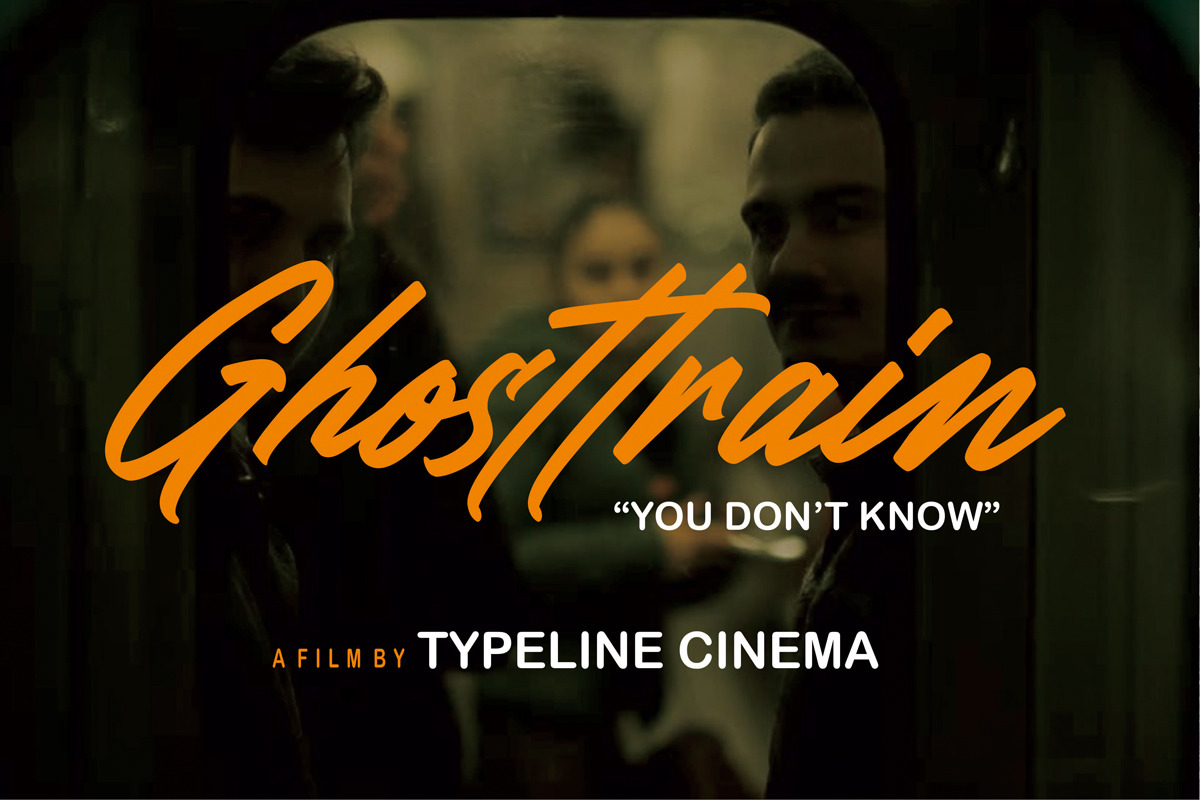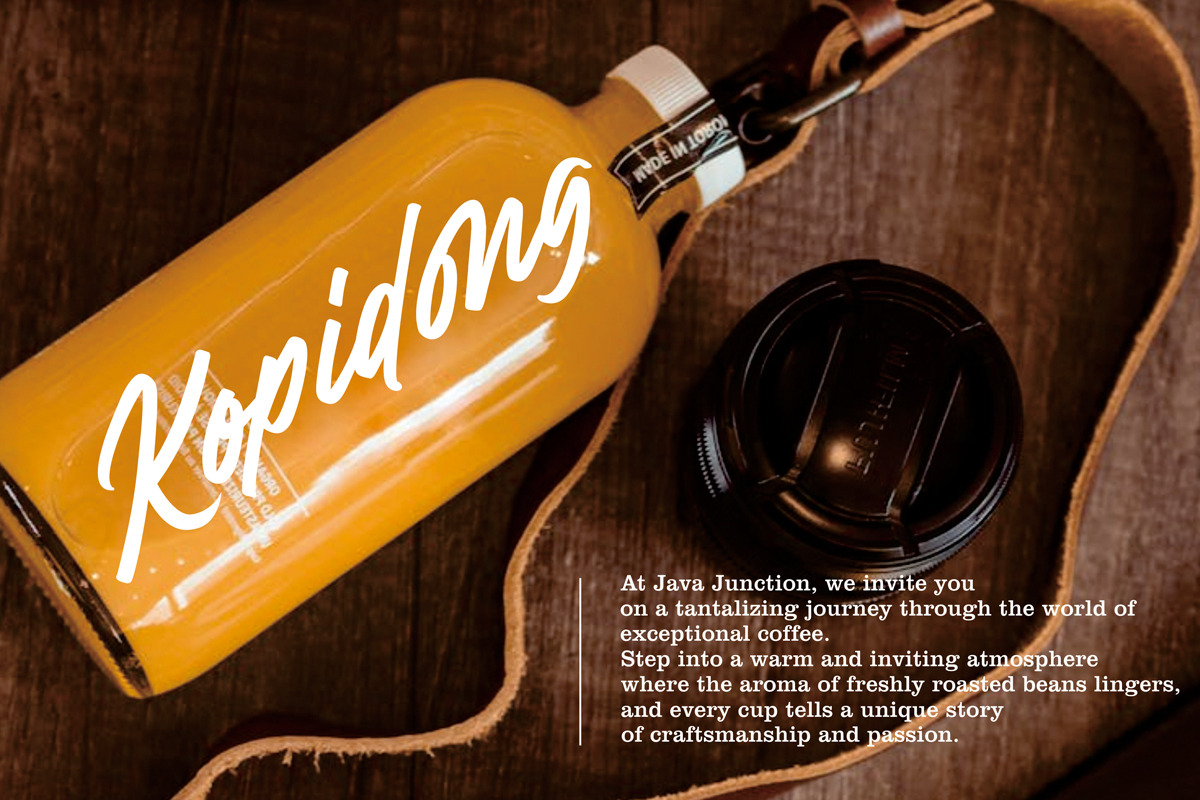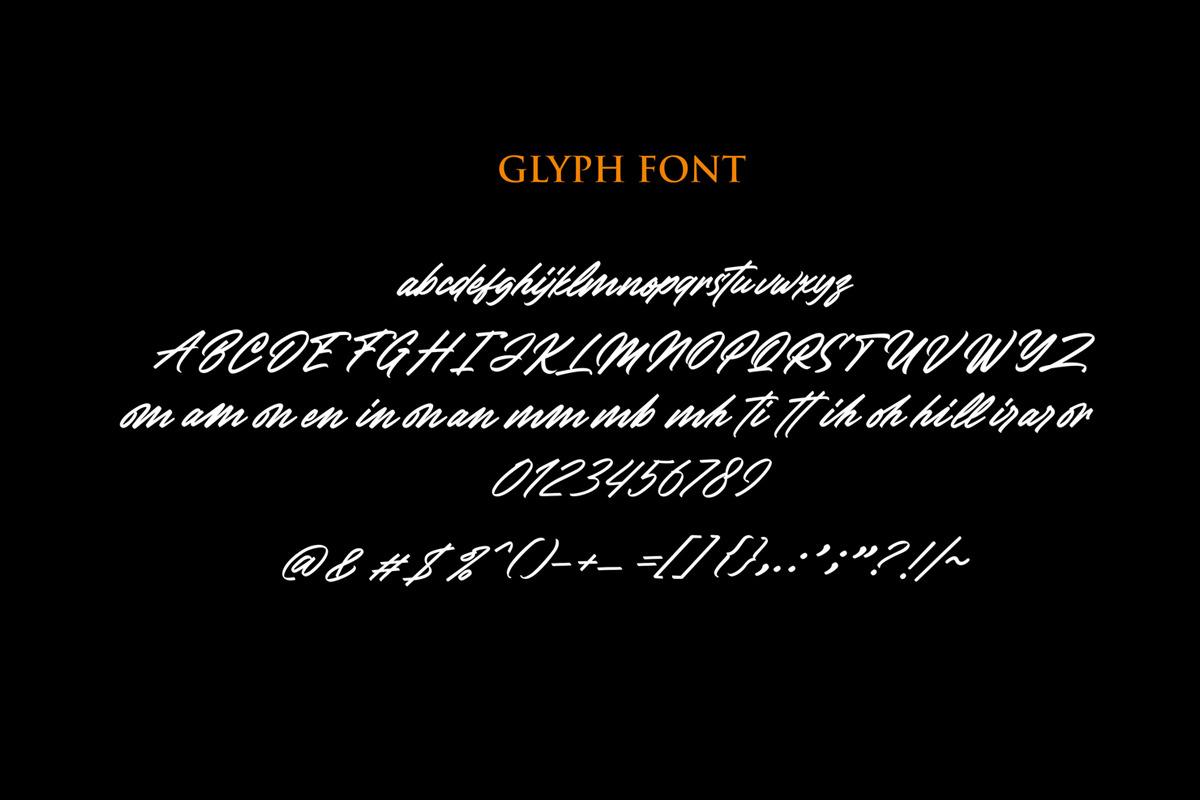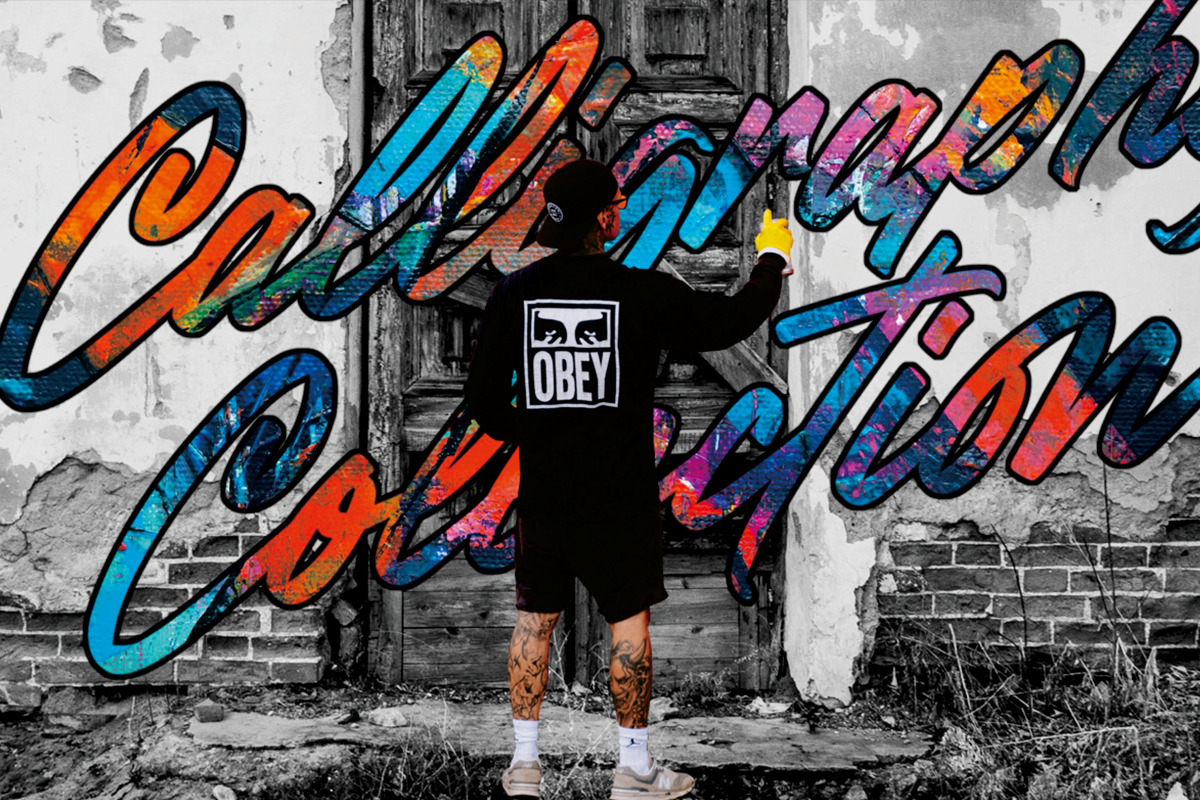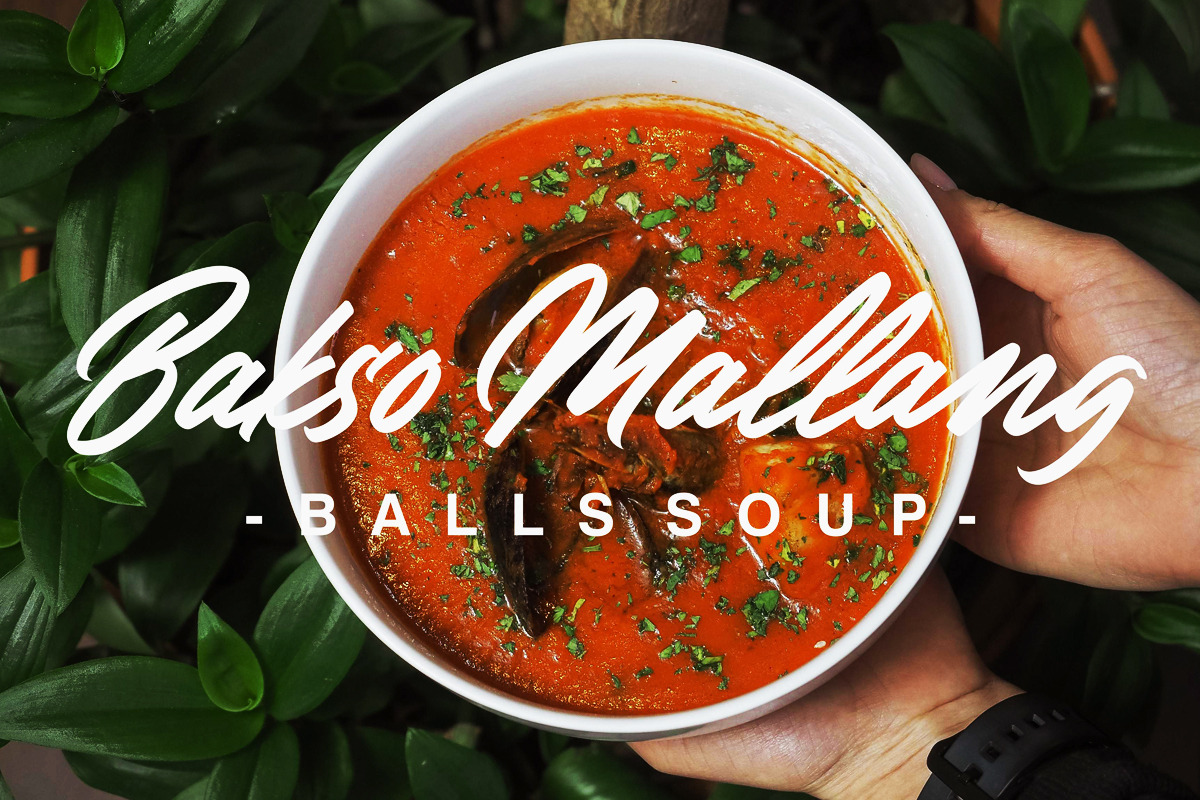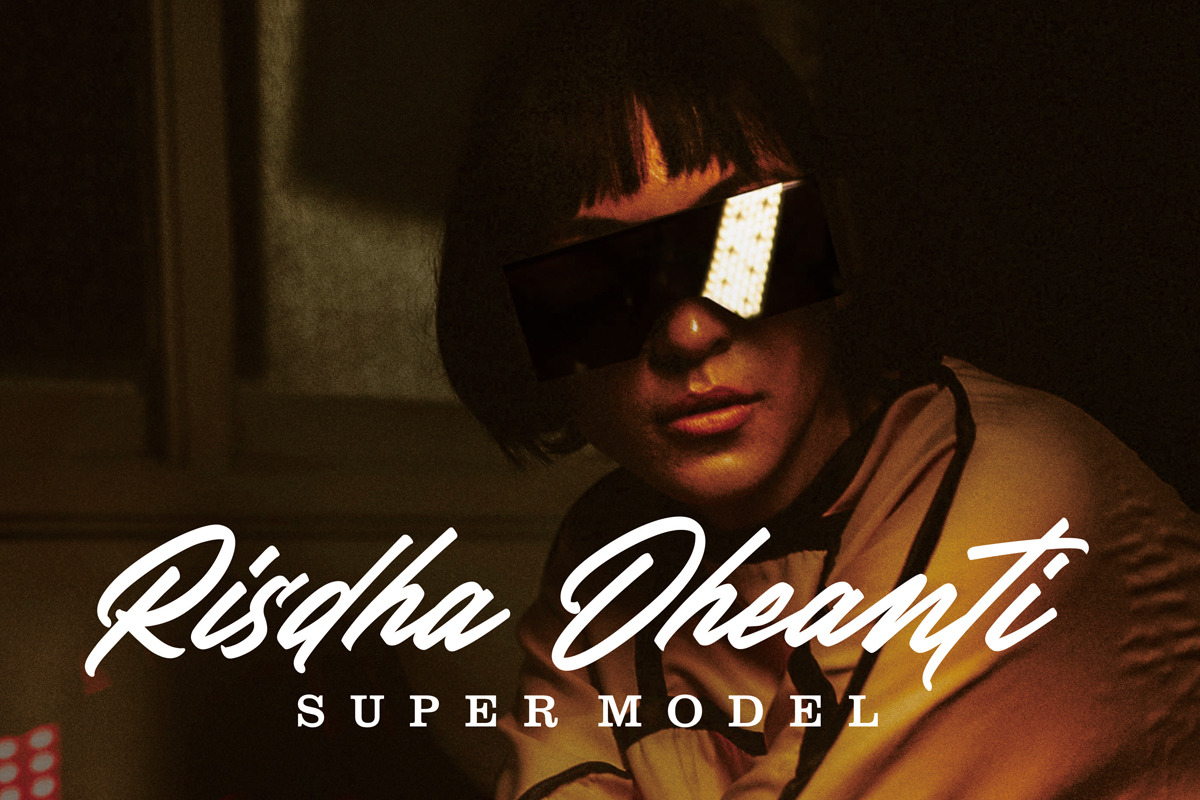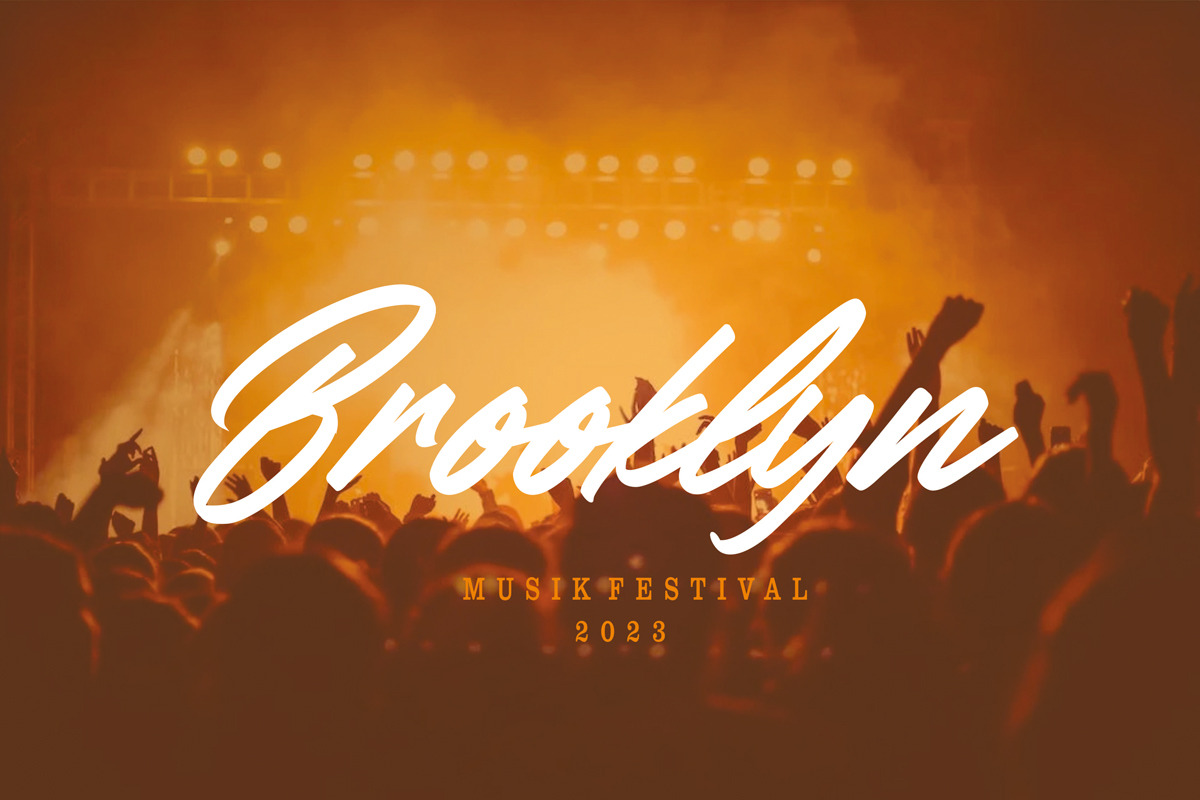
Delegante Champion
Introducing Delegante Champion Bold Modern Signature Font, designed to add a touch of sophistication and style to your projects. Crafted with utmost precision and creativity, this font is a true embodiment of elegance, making it ideal for various purposes. Whether you're designing logos, wedding invitations, social media posts, branding materials, or any creative project, this font will elevate your work to new heights. What's you'll get :